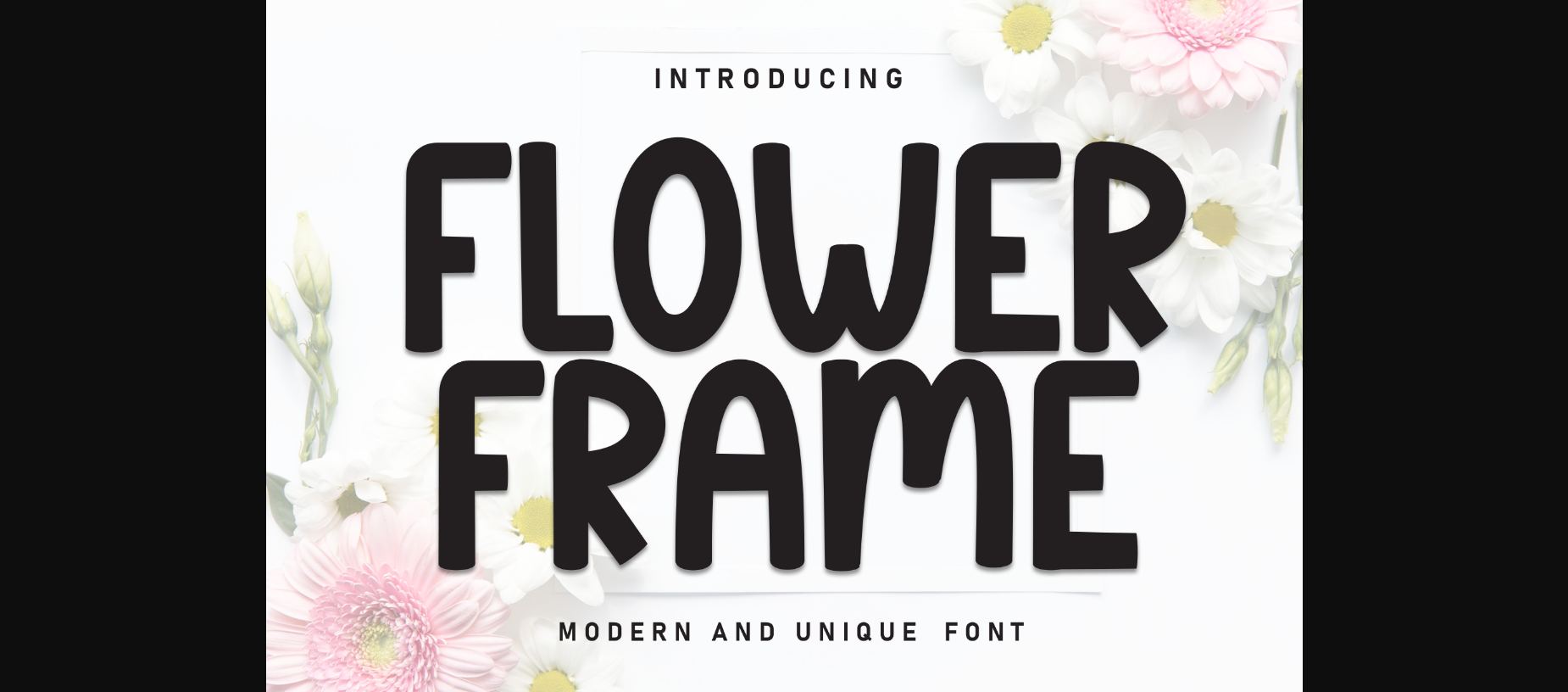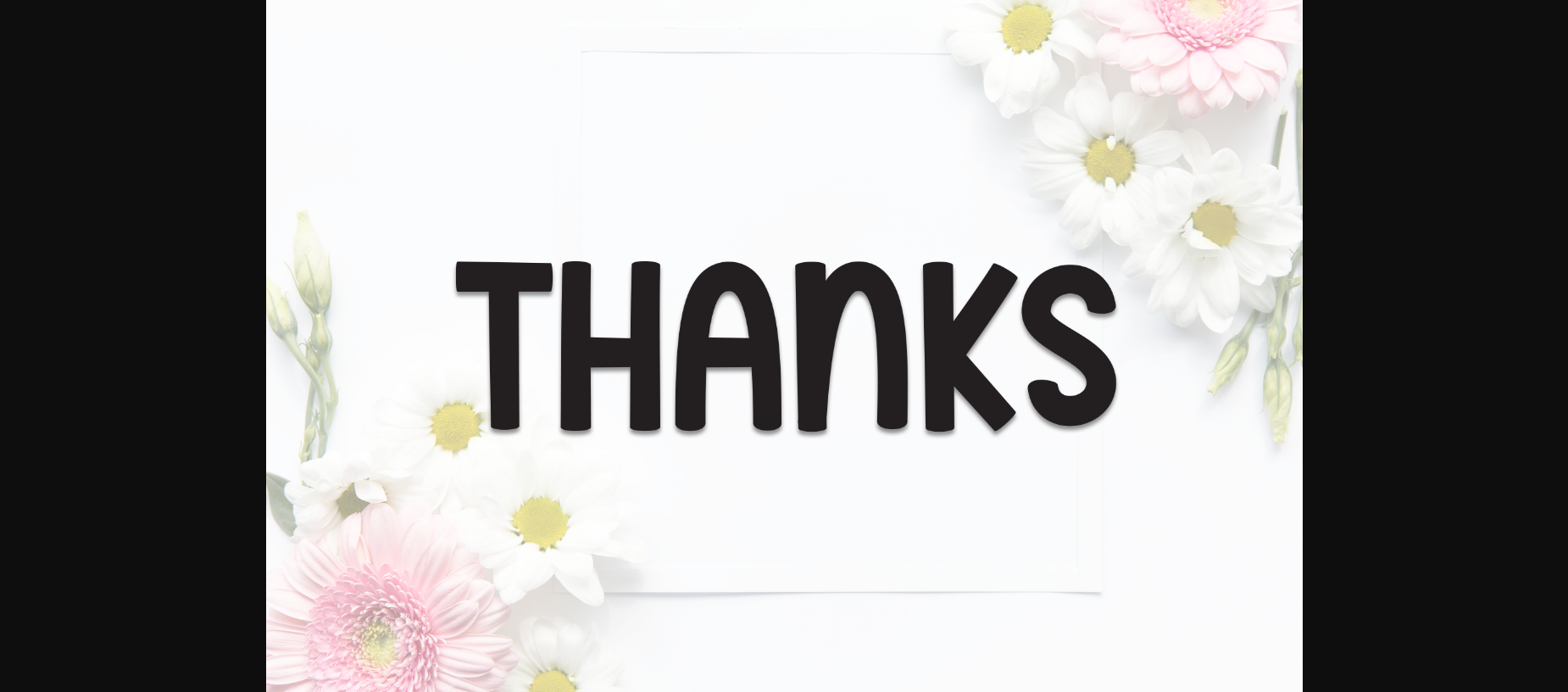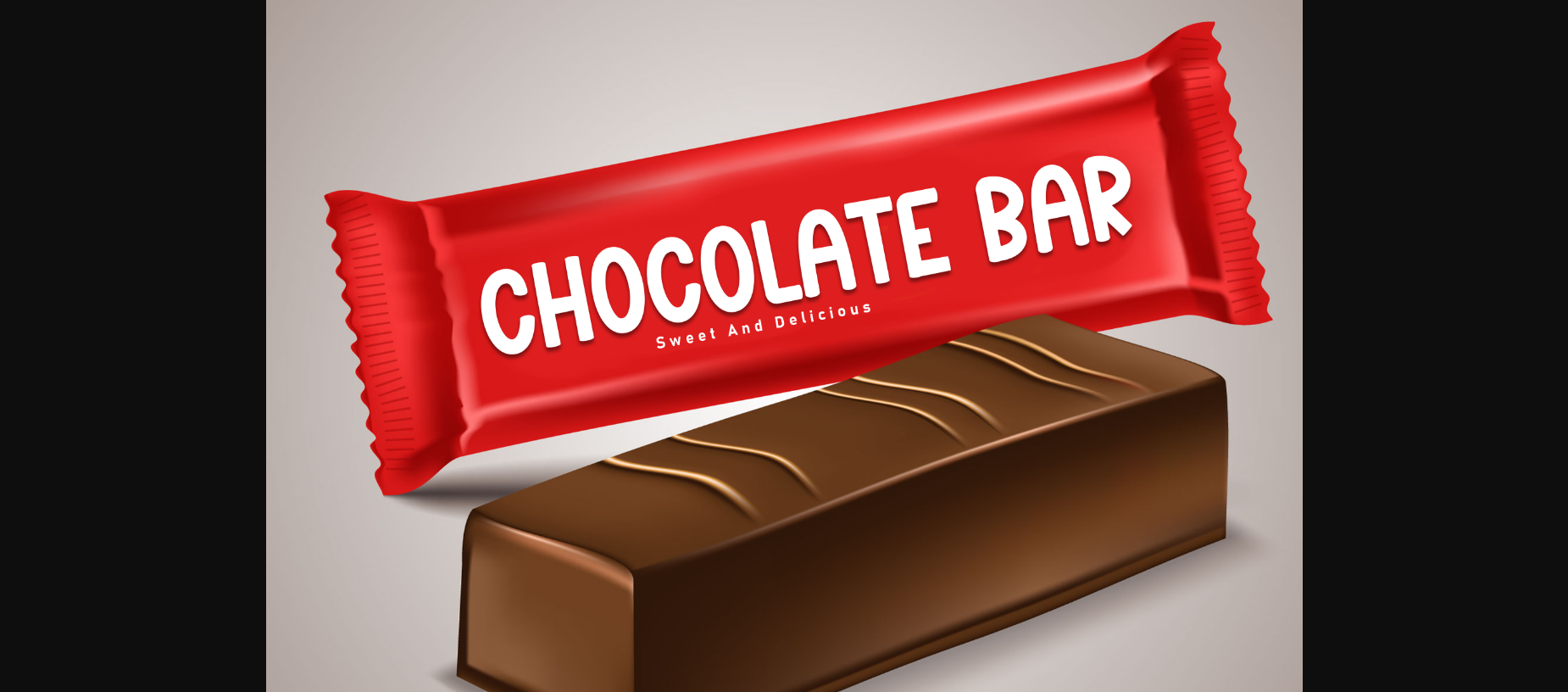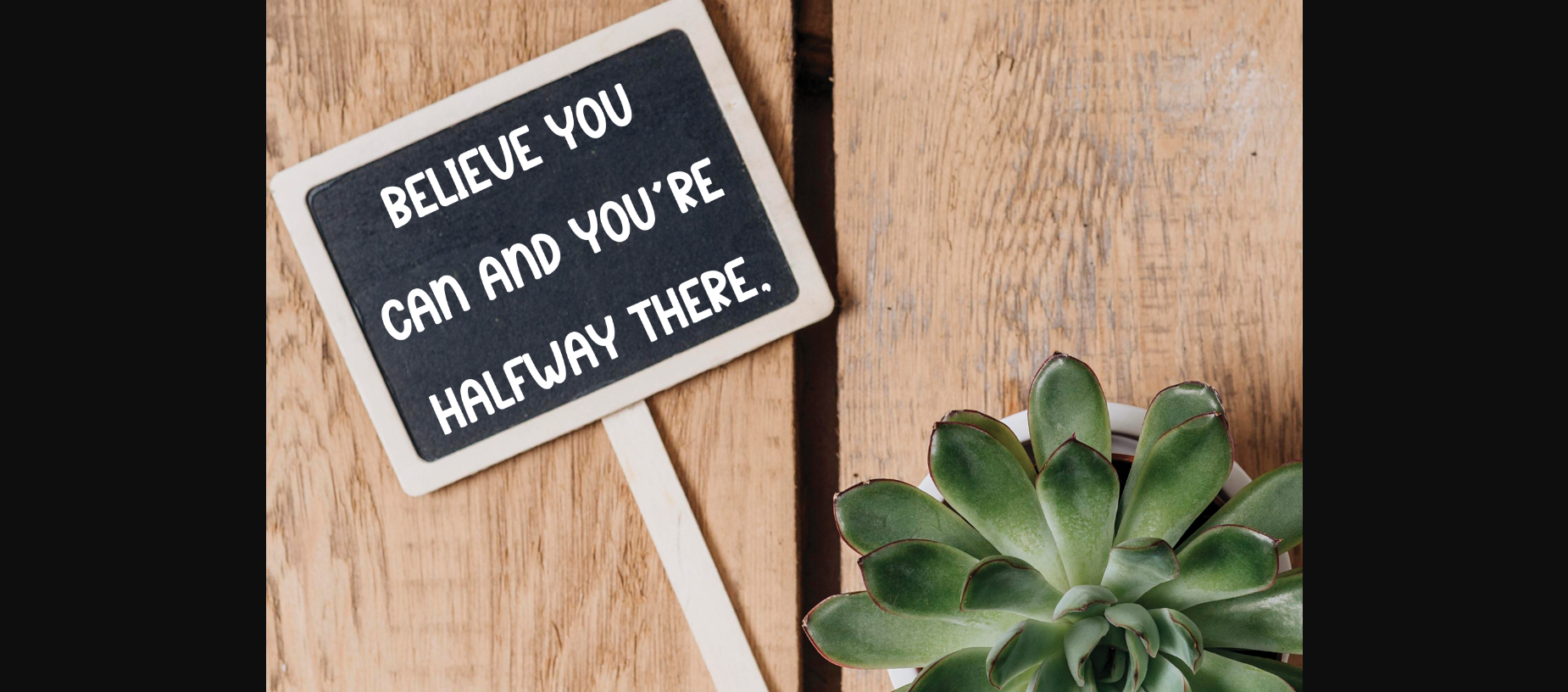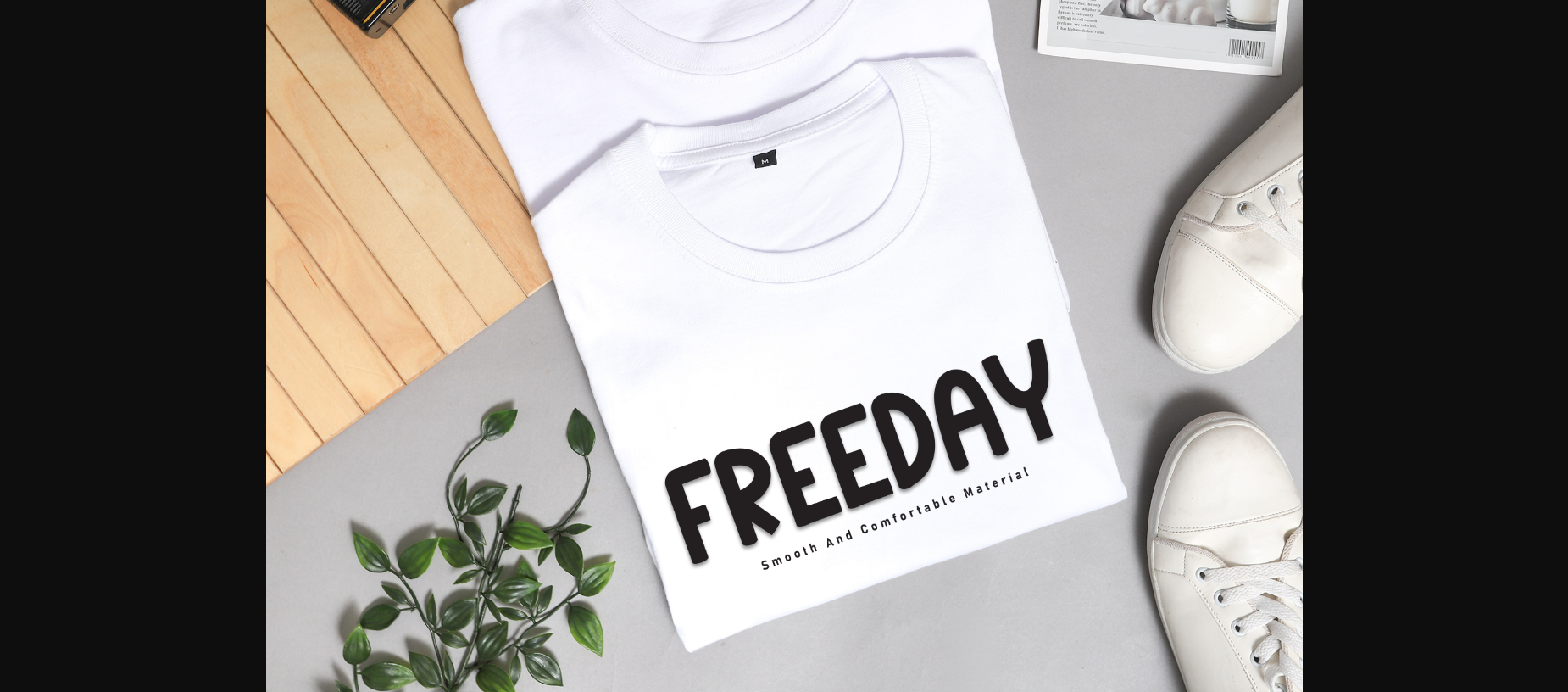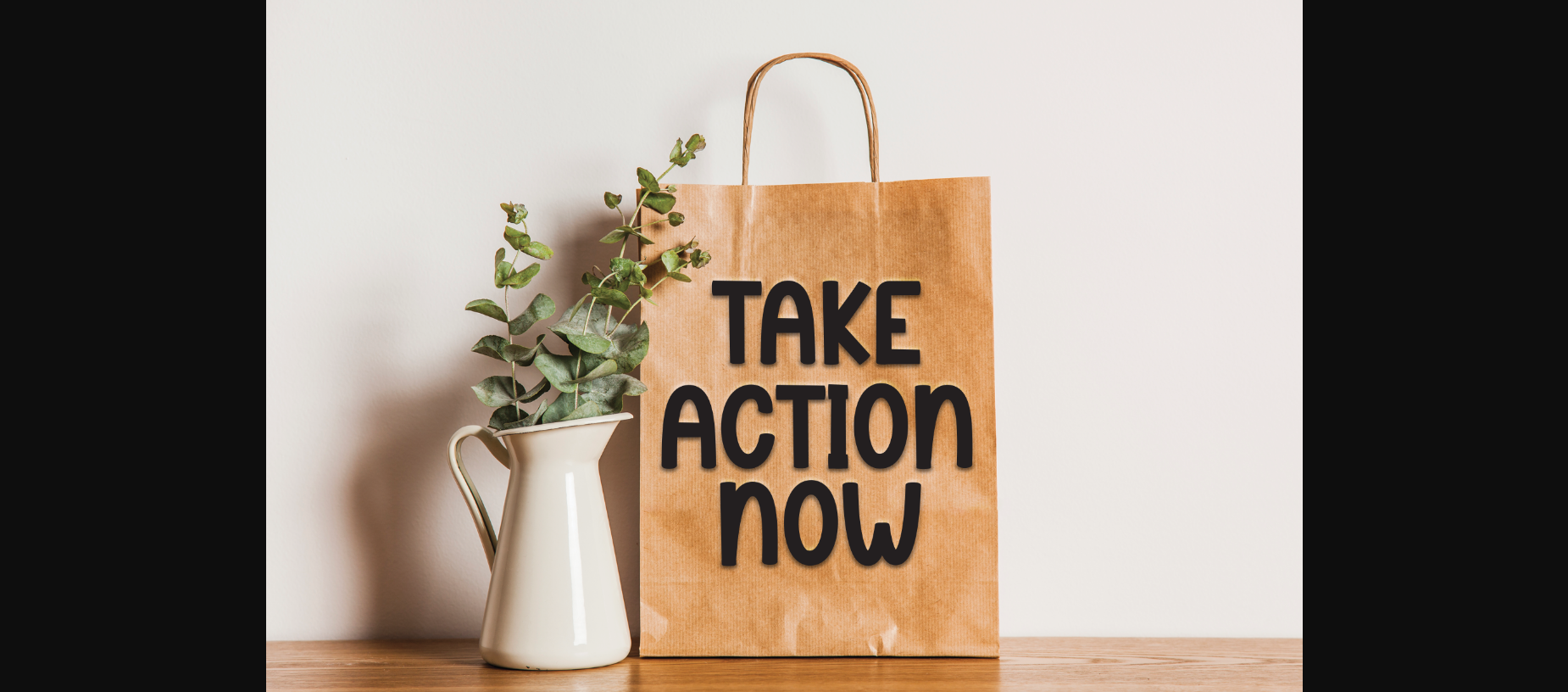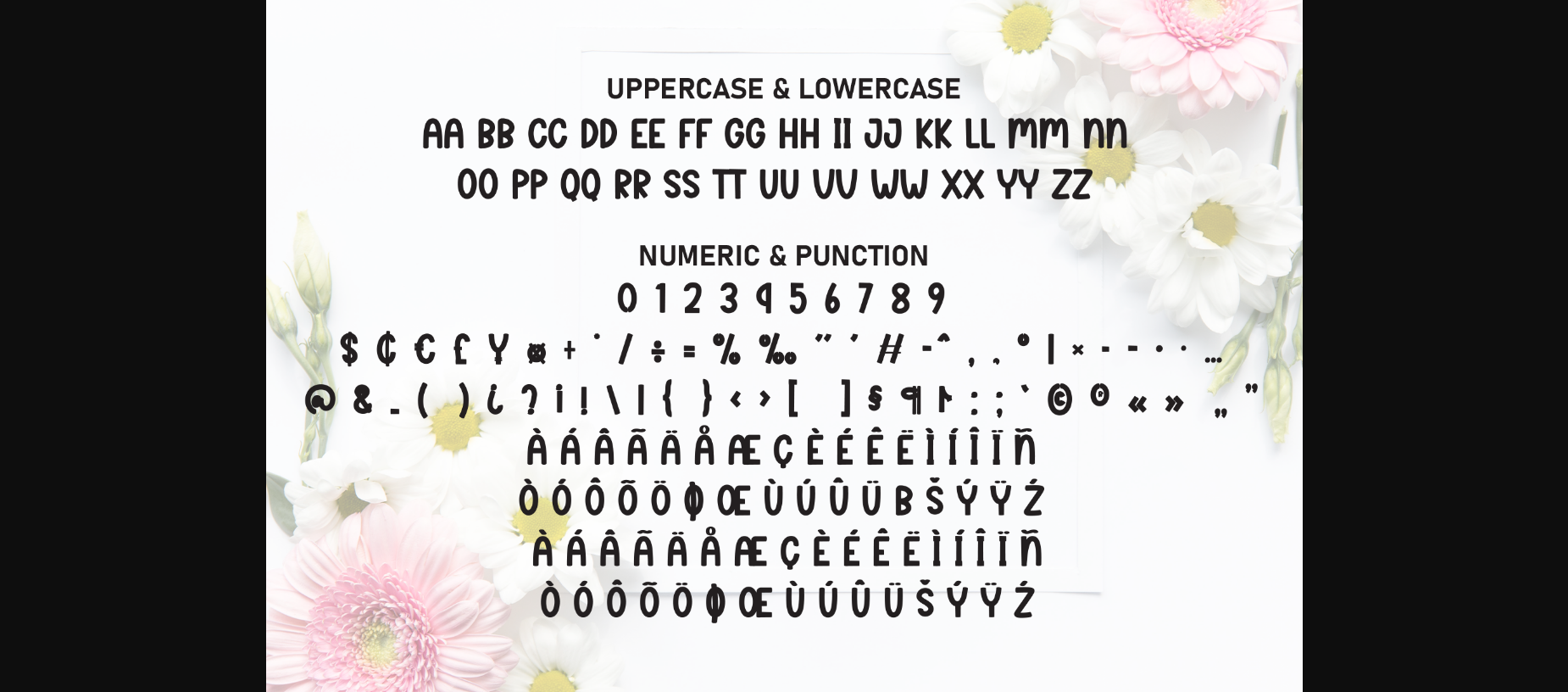
Flower Frame Font
About Flower Frame Font
Flower Frame is a charming sans-serif font exuding elegance and grace. Its fluid strokes and gentle curves mimic the movements of a dancer, evoking a sense of beauty and sophistication. Perfect for invitations, greeting cards, and branding projects, this font adds a touch of whimsy and romance to any design.